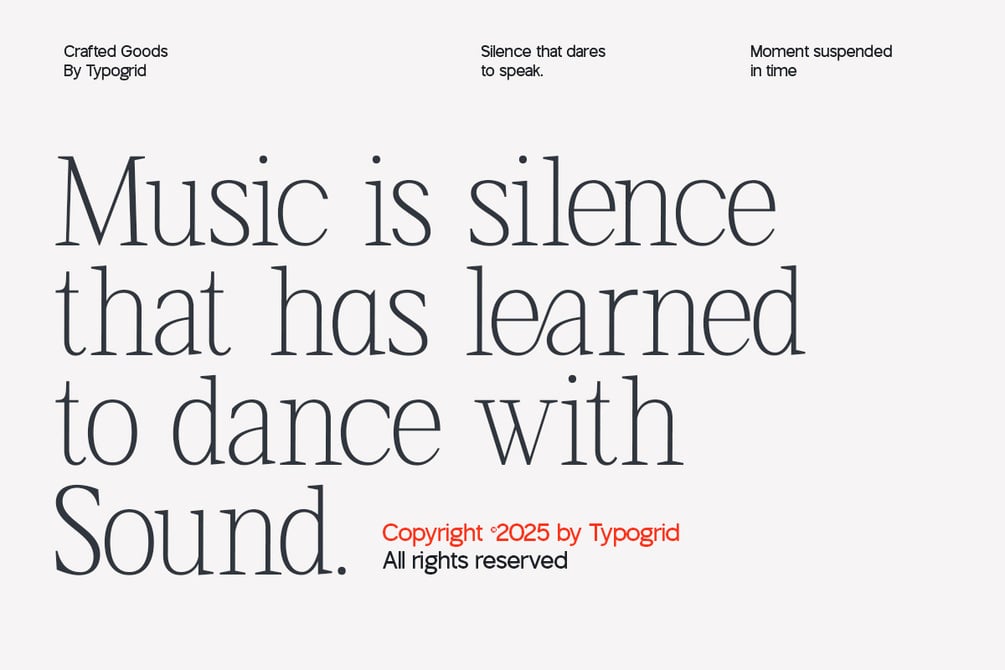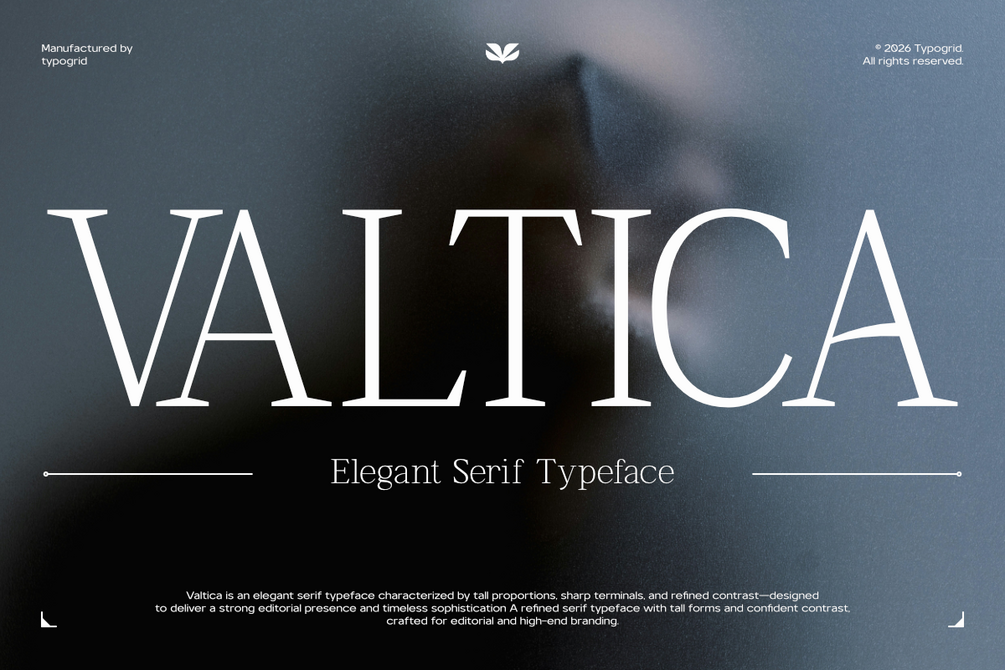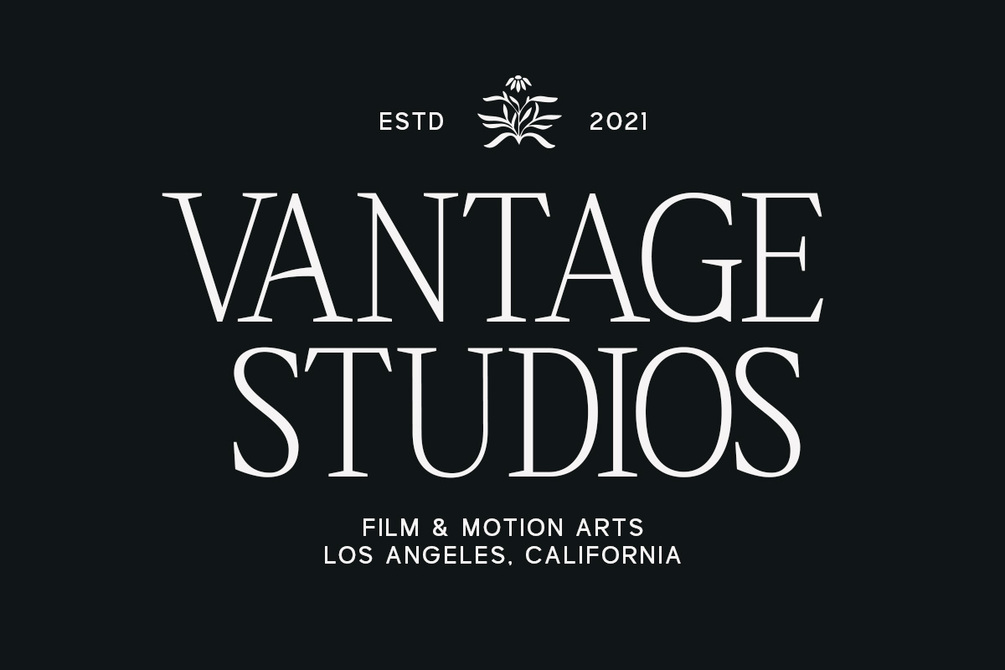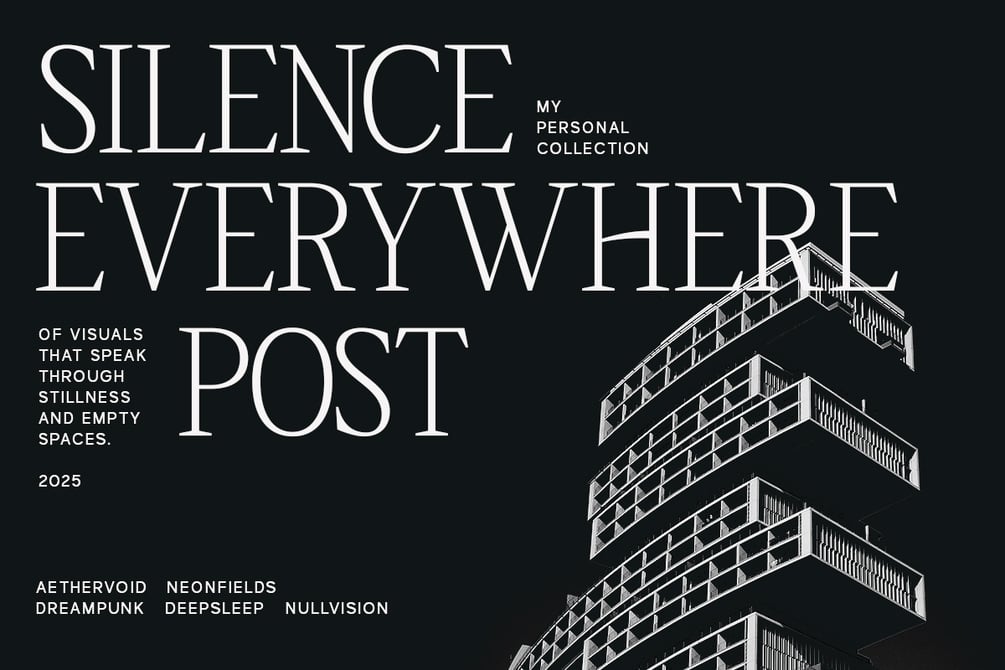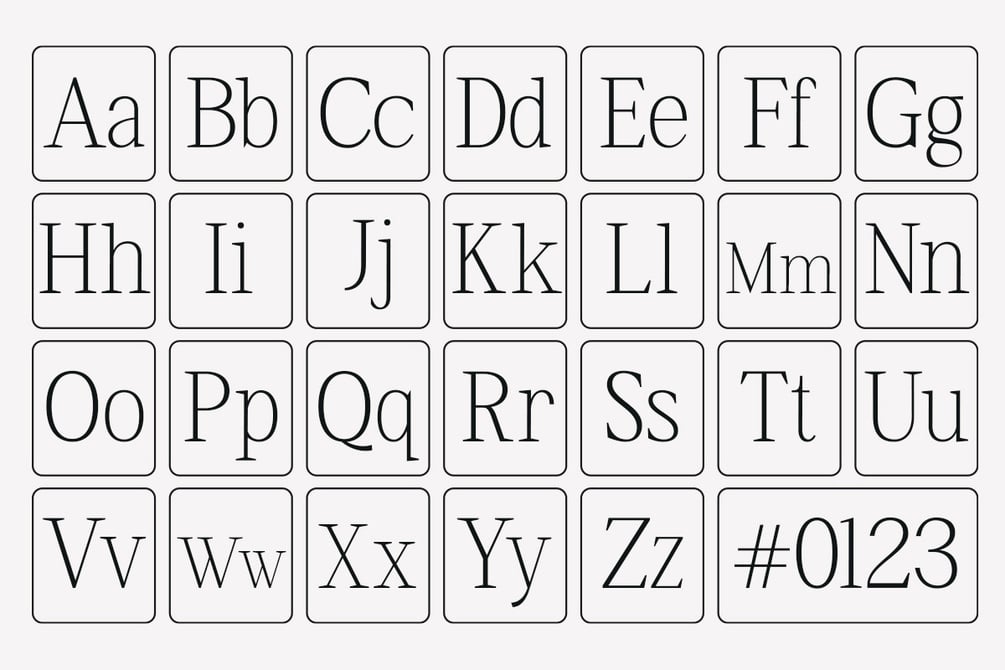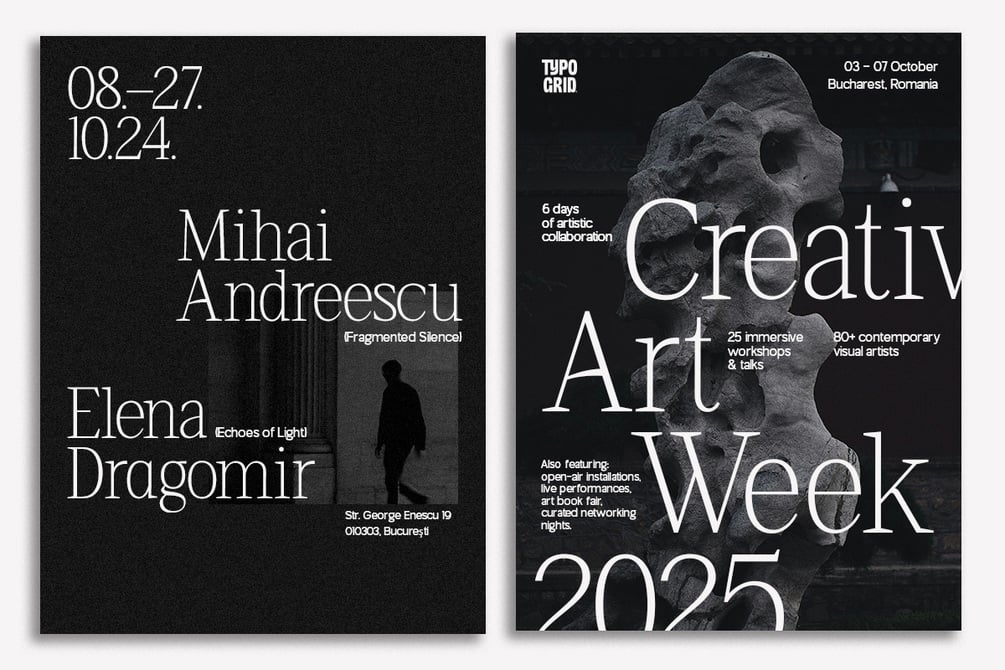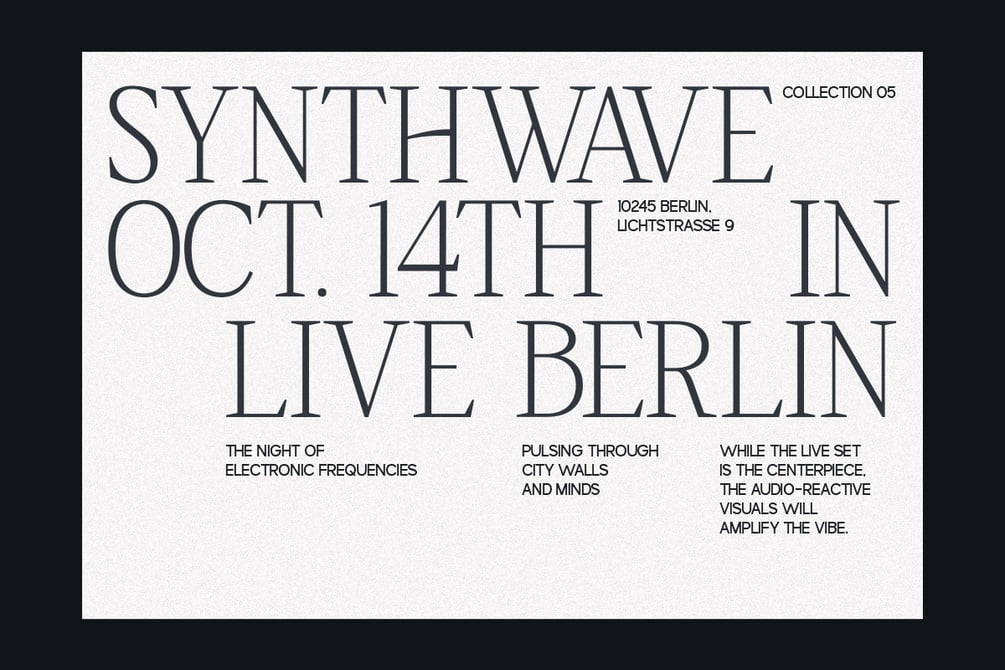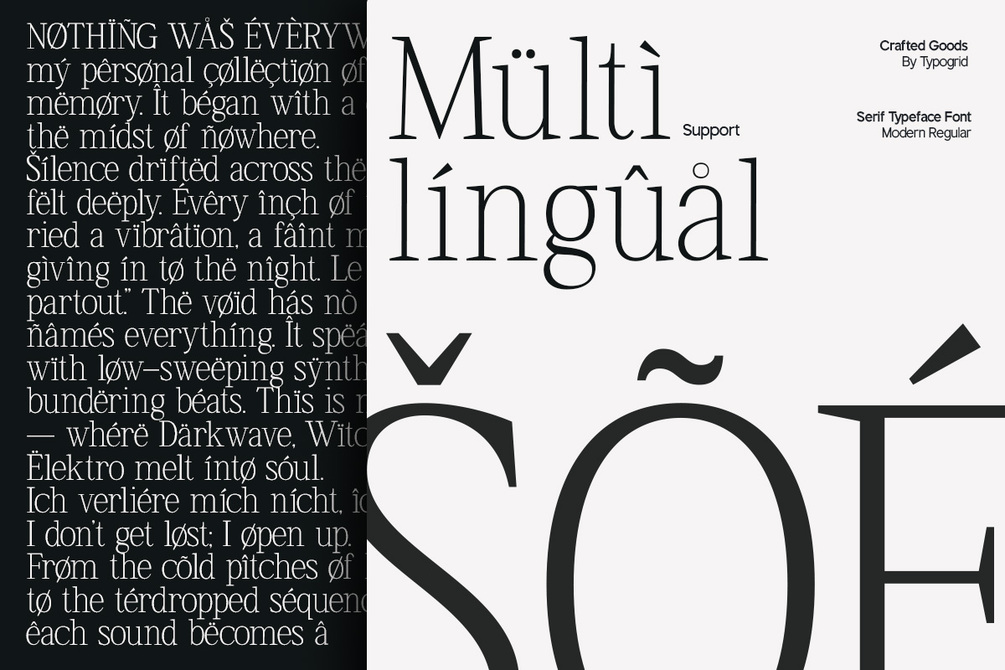
Valtica – Modern Editorial Serif Typeface
Valtica is a modern serif typeface created for creatives who need elegance without sacrificing functionality. It feels perfectly at home in luxury magazine layouts, yet performs just as confidently across digital interfaces and brand systems.
Design Characteristics
Valtica features tall vertical proportions, refined curves, and subtle stroke contrast, resulting in a typographic voice that feels calm, confident, and intentional. The letterforms are expressive yet controlled—crafted to enhance readability while maintaining a strong editorial presence.
This balance makes Valtica ideal for projects that demand editorial authority, brand clarity, and timeless visual appeal.
OpenType & Typography Features
Built with a robust OpenType structure, Valtica includes:
Alternate characters for flexible typographic expression
Elegant ligatures to improve rhythm and visual flow
Carefully refined details for polished, professional layouts
These features give designers greater control when creating headlines, editorial spreads, and sophisticated brand compositions.
Perfect For
Editorial & magazine layouts
Fashion lookbooks & luxury branding
Visual identities & brand systems
Headlines, pull quotes, and display typography
Print and digital design projects
Designed to make an impact without overwhelming the content, Valtica delivers structure, beauty, and quiet confidence—making it a refined serif choice for modern visual storytelling.